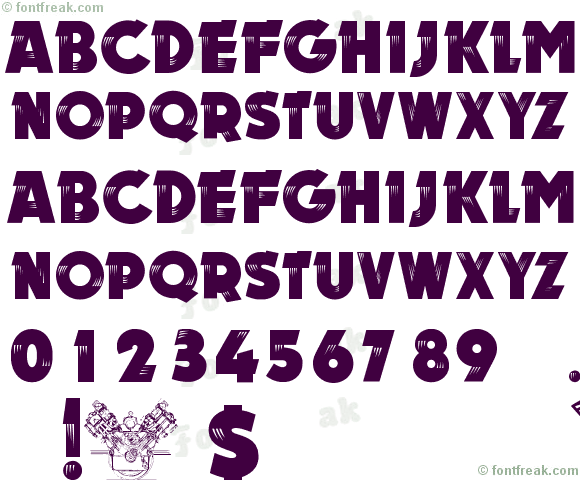
New MOTOR
About New MOTOR
The New MOTOR font by Hero Fonts is a striking display typeface that captures attention with its unique, modern aesthetic. Designed by Guilhem Greco in 2013, this font stands out in the category of decorative typefaces, making it perfect for projects that require a bold visual statement. The New MOTOR font features a distinctive stroke weight that varies throughout the characters, creating a dynamic contrast that enhances its overall visual impact. The spacing is carefully balanced, allowing for legibility while maintaining a sense of artistic flair. Decorative elements, including subtle line patterns and geometric shapes, add an extra layer of interest, making it suitable for a variety of creative applications.
This font is particularly effective for use cases such as eye-catching movie posters, vibrant restaurant menus, and modern event flyers. It can also enhance branding materials for tech startups or creative agencies looking to convey a sense of innovation and style. Graphic designers and content creators will find the New MOTOR font invaluable for projects that aim to attract and engage audiences.
What sets the New MOTOR font apart is its ability to blend contemporary design with a playful spirit. Each letterform tells a story, inviting viewers to explore further and engage with the content. Its modern look, combined with artistic flair, makes it a versatile choice for anyone aiming to make a memorable impression in their work.